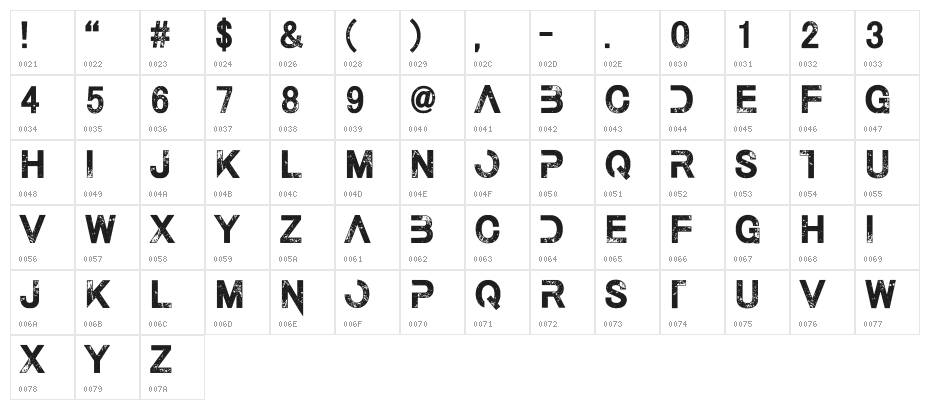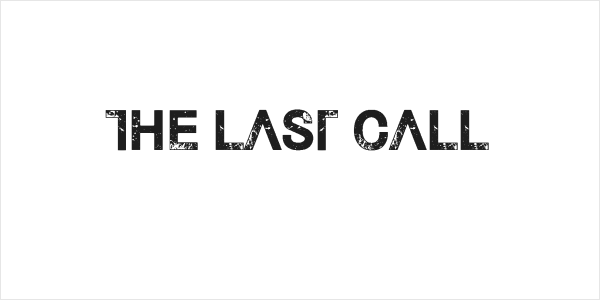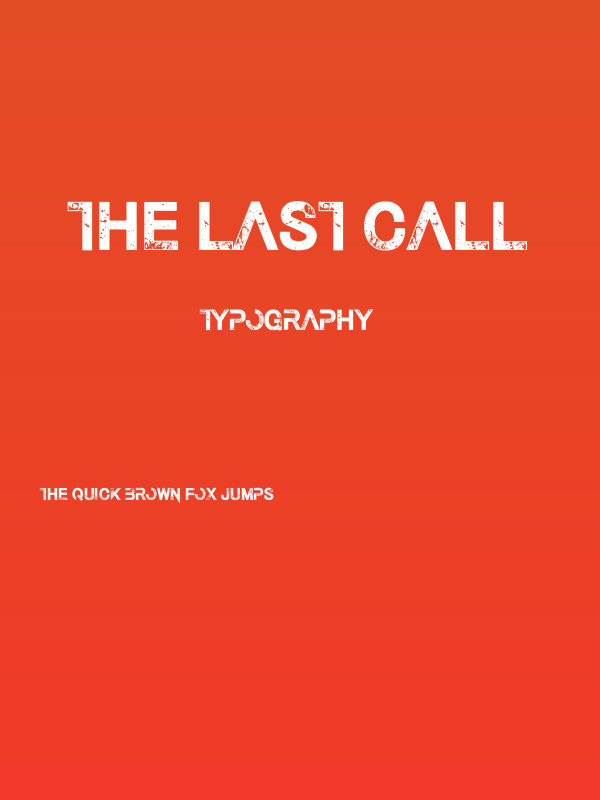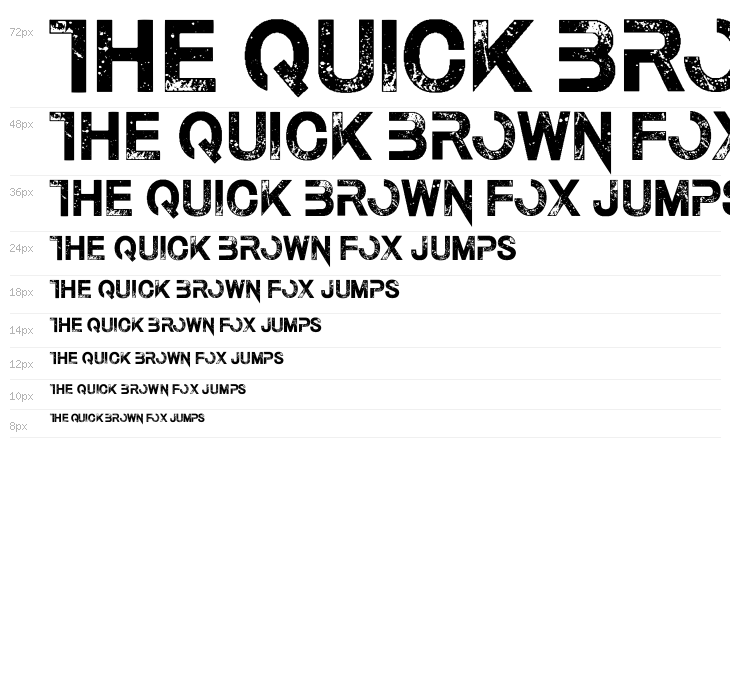
The Last Call Font
The Last Call Description
This font features a bold, distressed style with a textured appearance that gives it a rugged, worn look. The characters are uppercase and have a geometric, blocky structure, making them highly legible and impactful. The distressed effect is consistent across all characters, adding a vintage, industrial feel. The numbers and special characters follow the same design, ensuring uniformity throughout. This font is ideal for projects that require a strong, eye-catching aesthetic with a touch of grunge or retro flair.
| Overall Style | Vintage, Industrial |
| Proposed Projects | Ideal for posters, album covers, branding for edgy or retro-themed products, and any design needing a bold statement. |